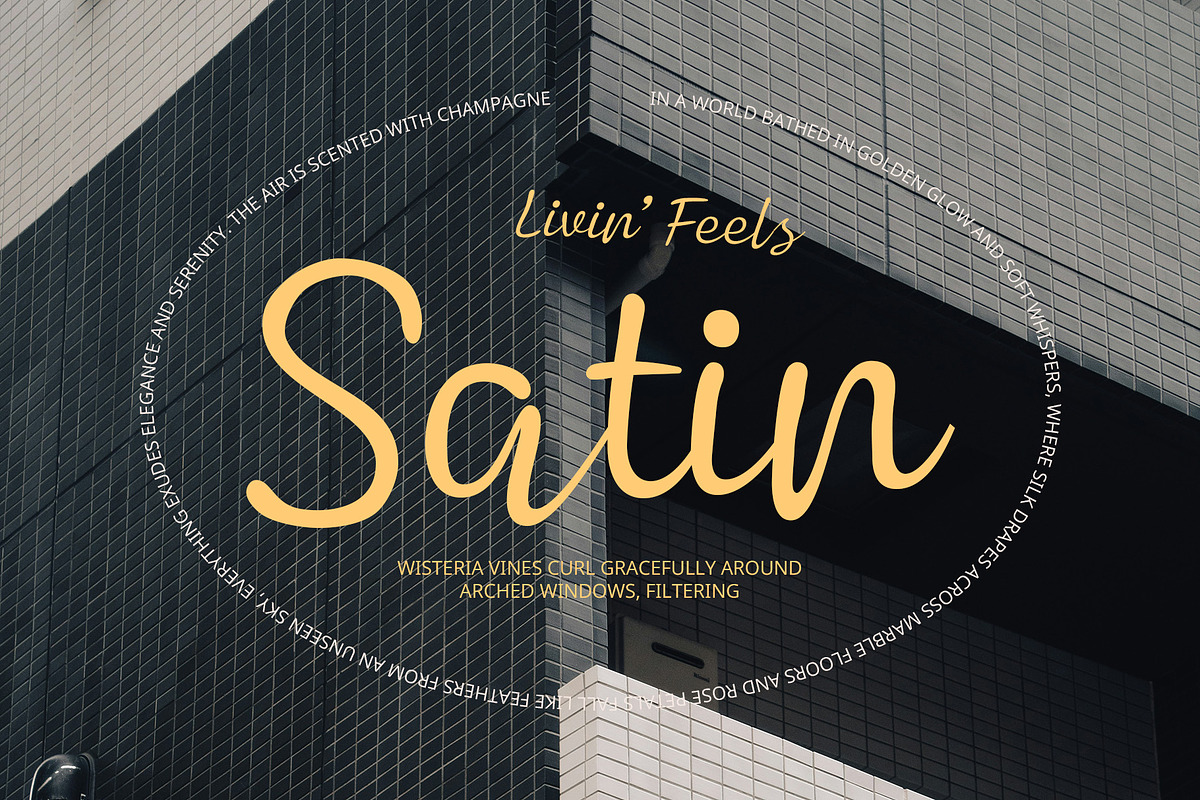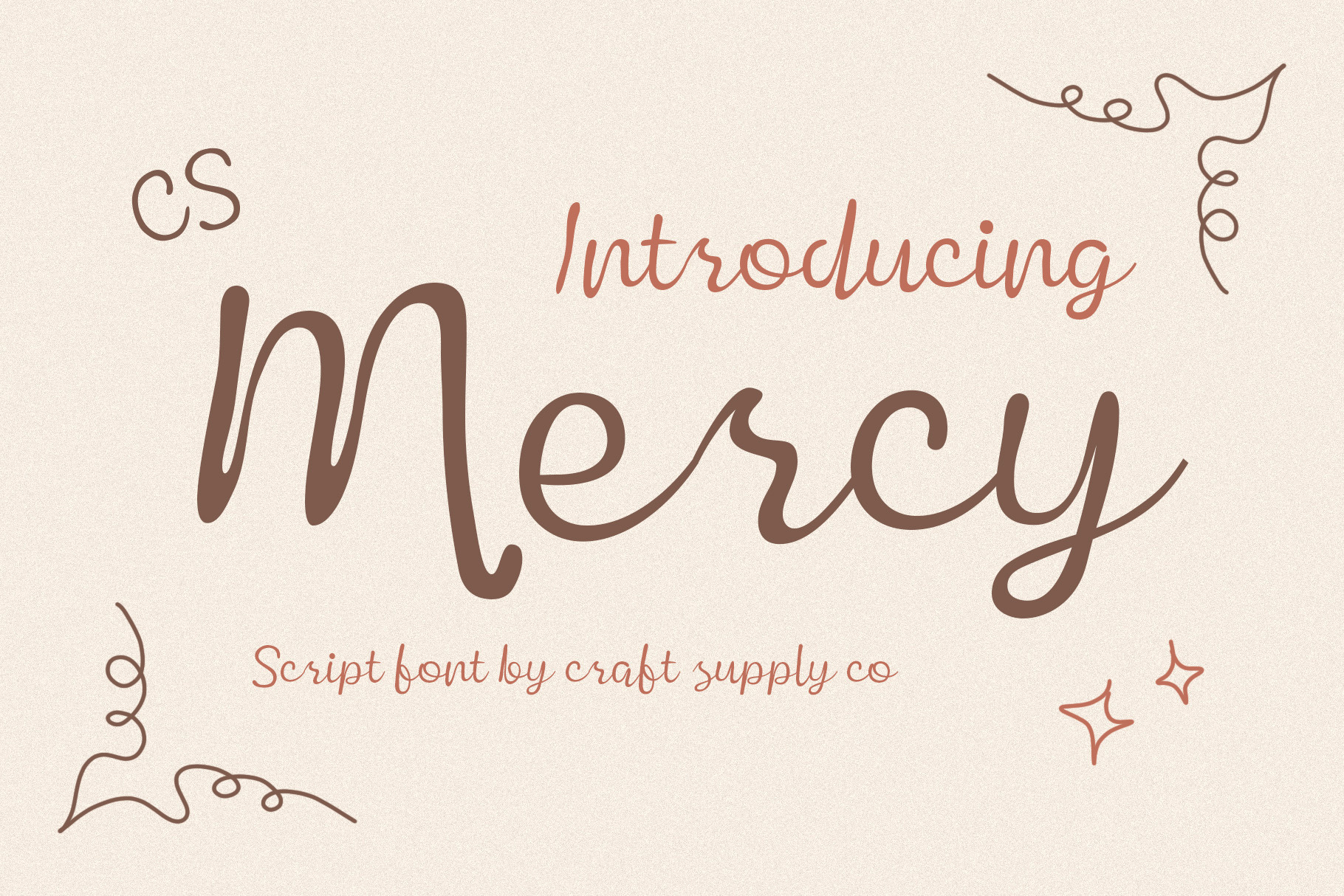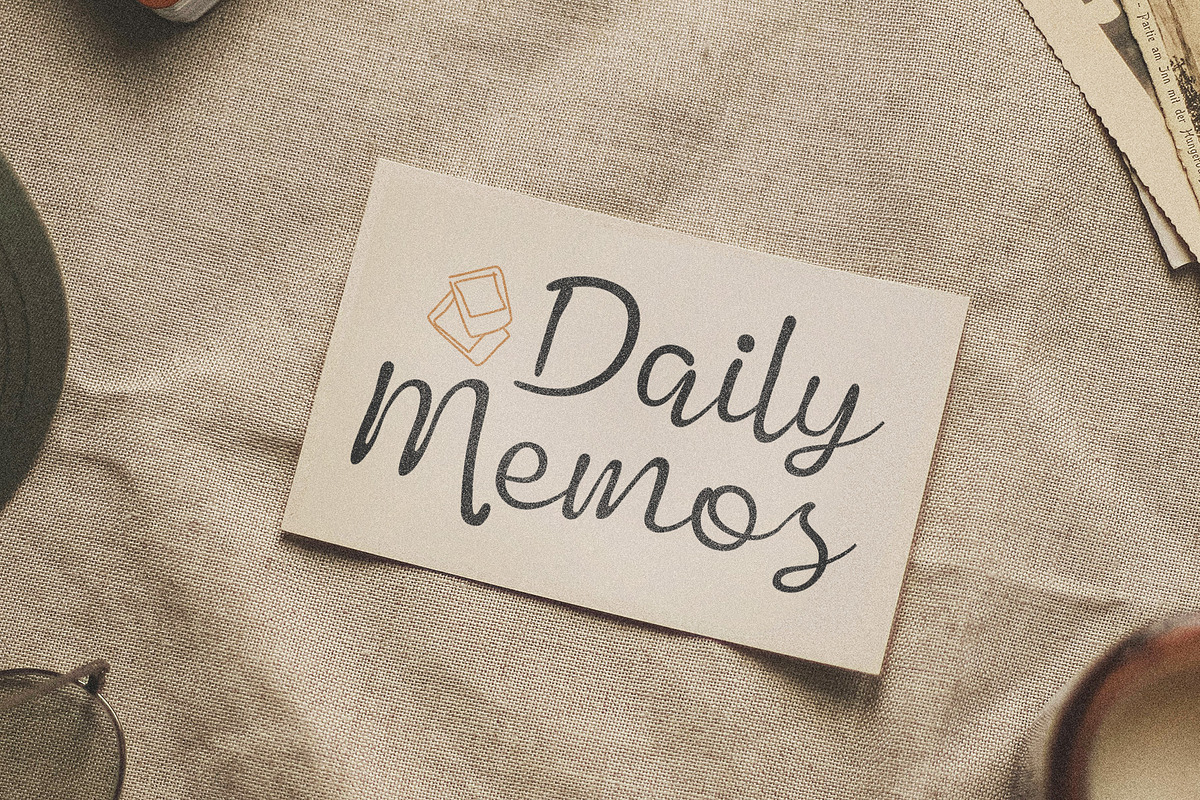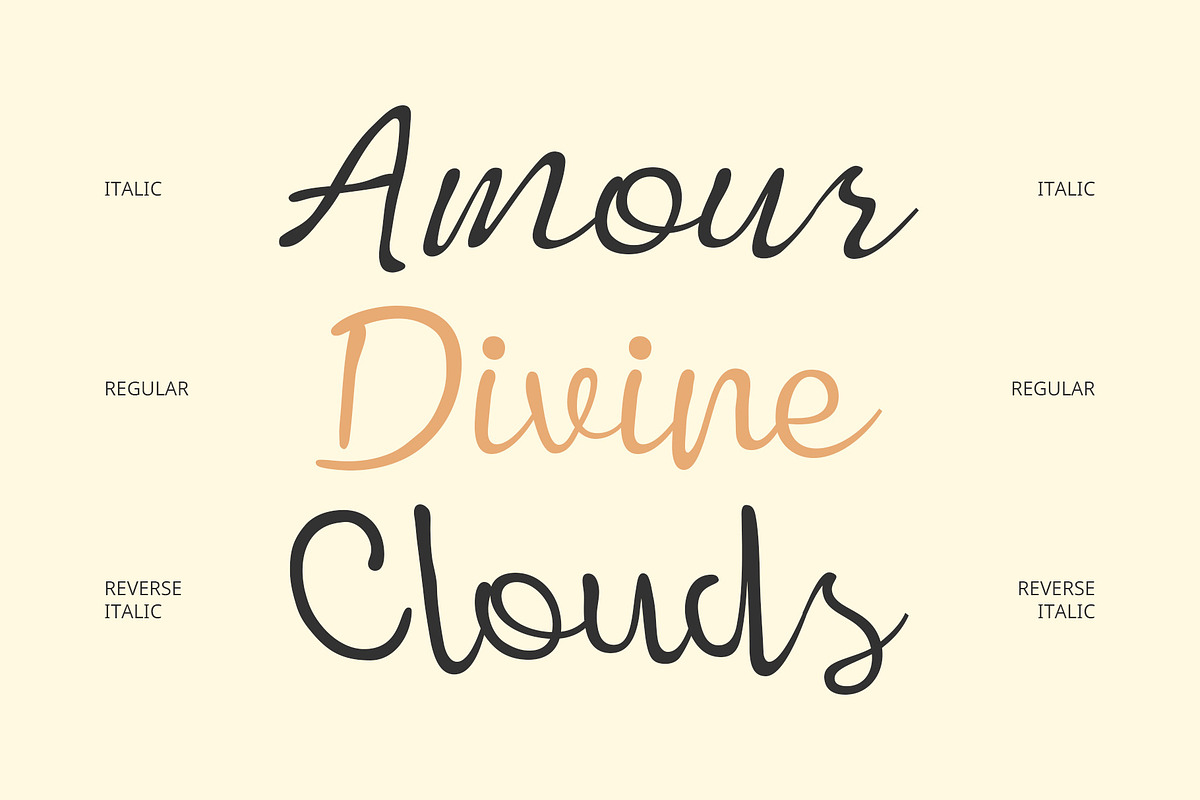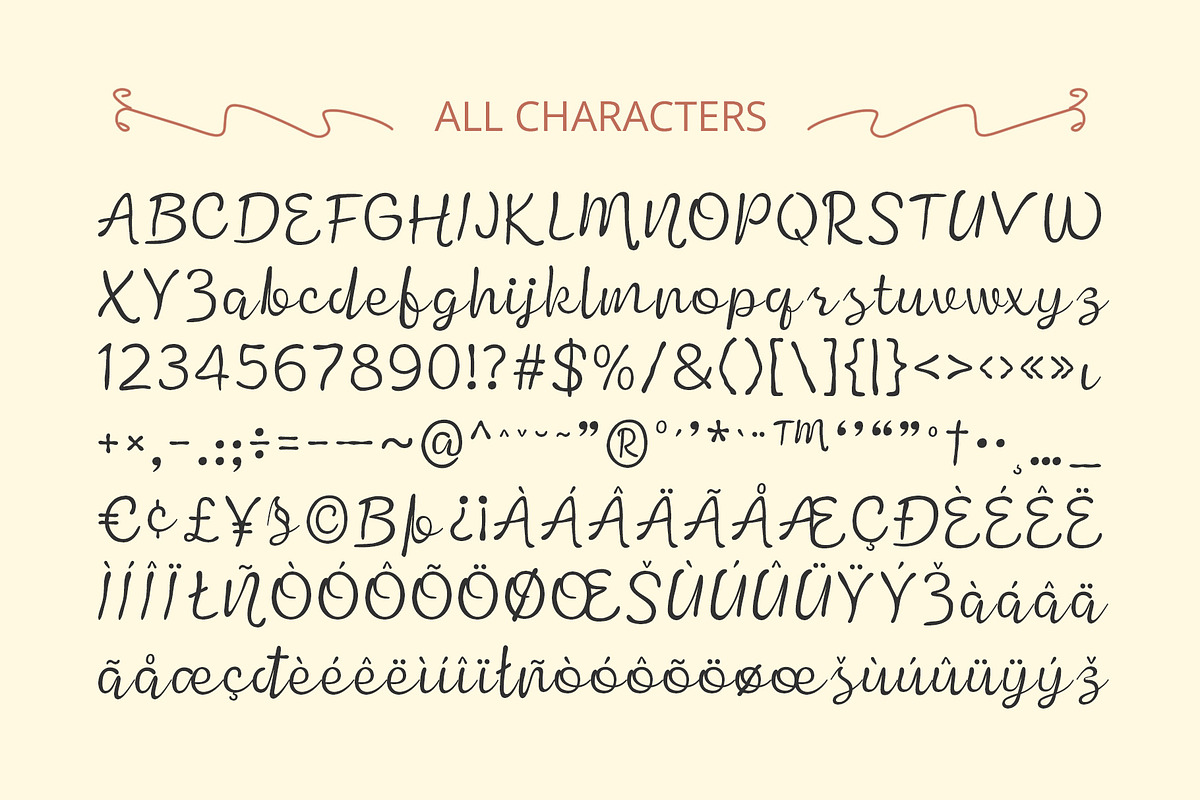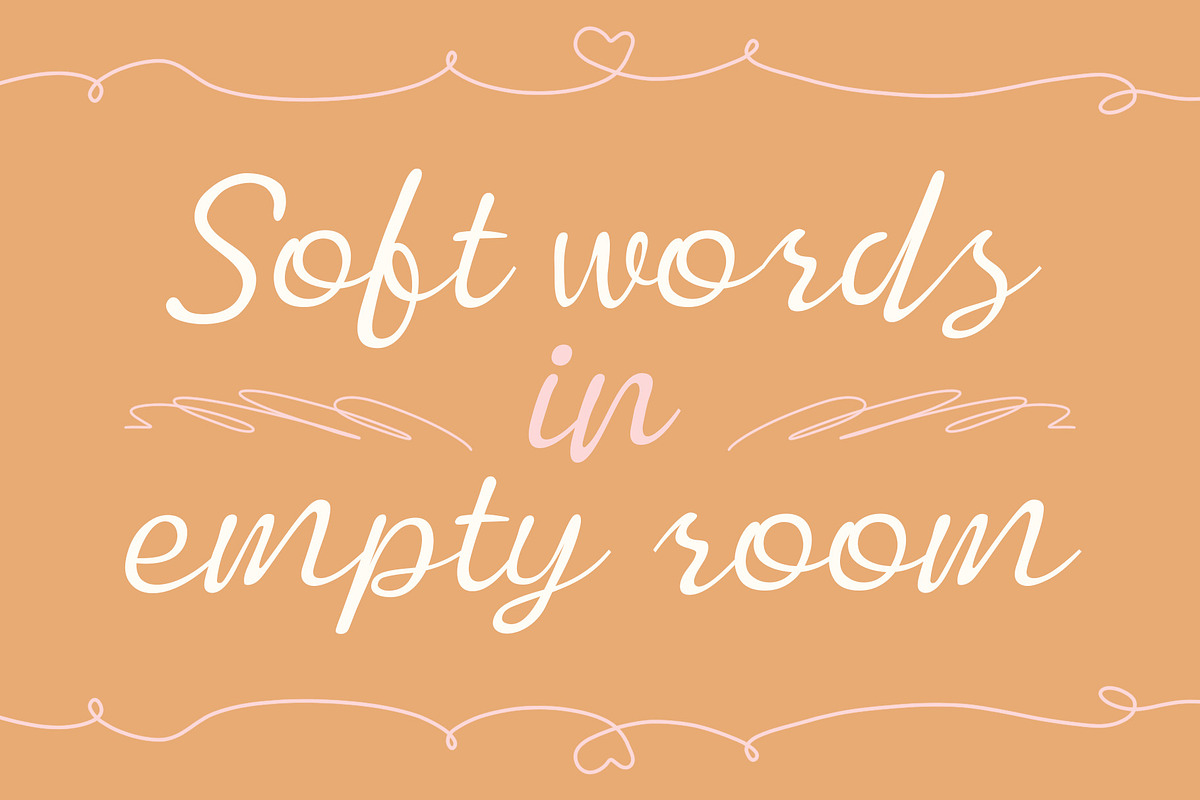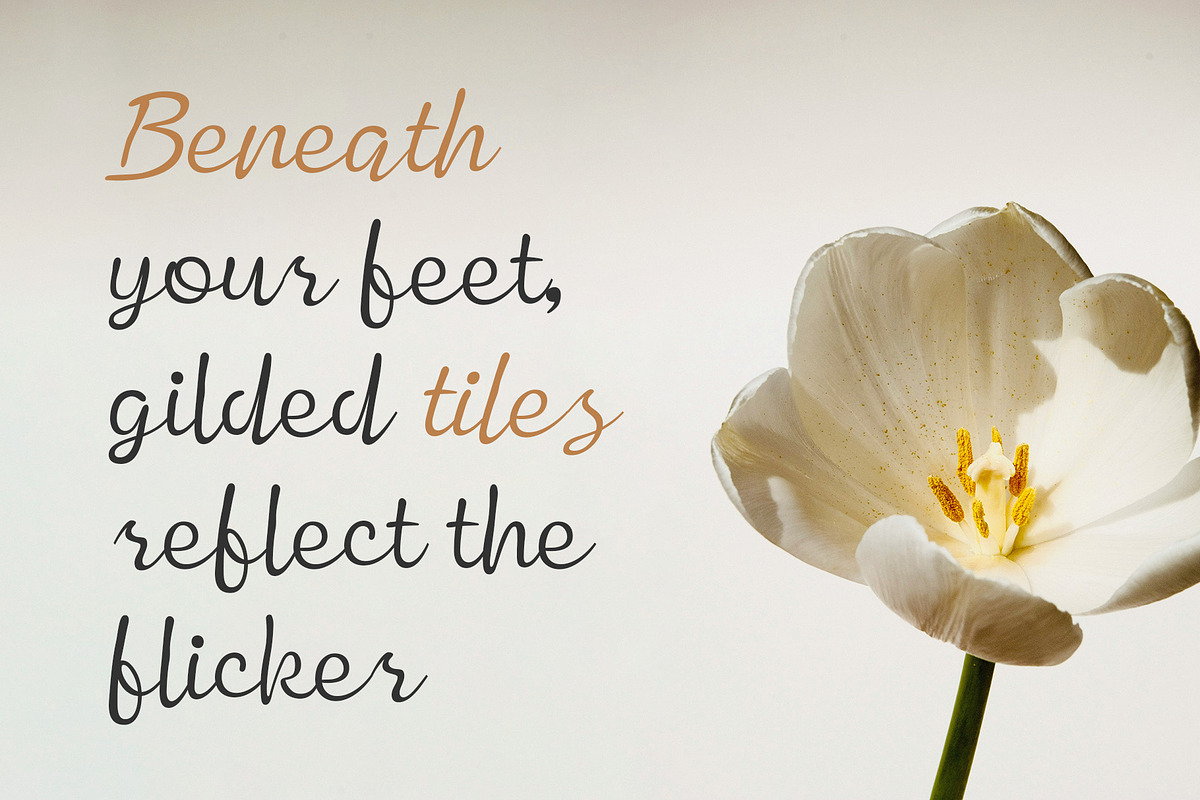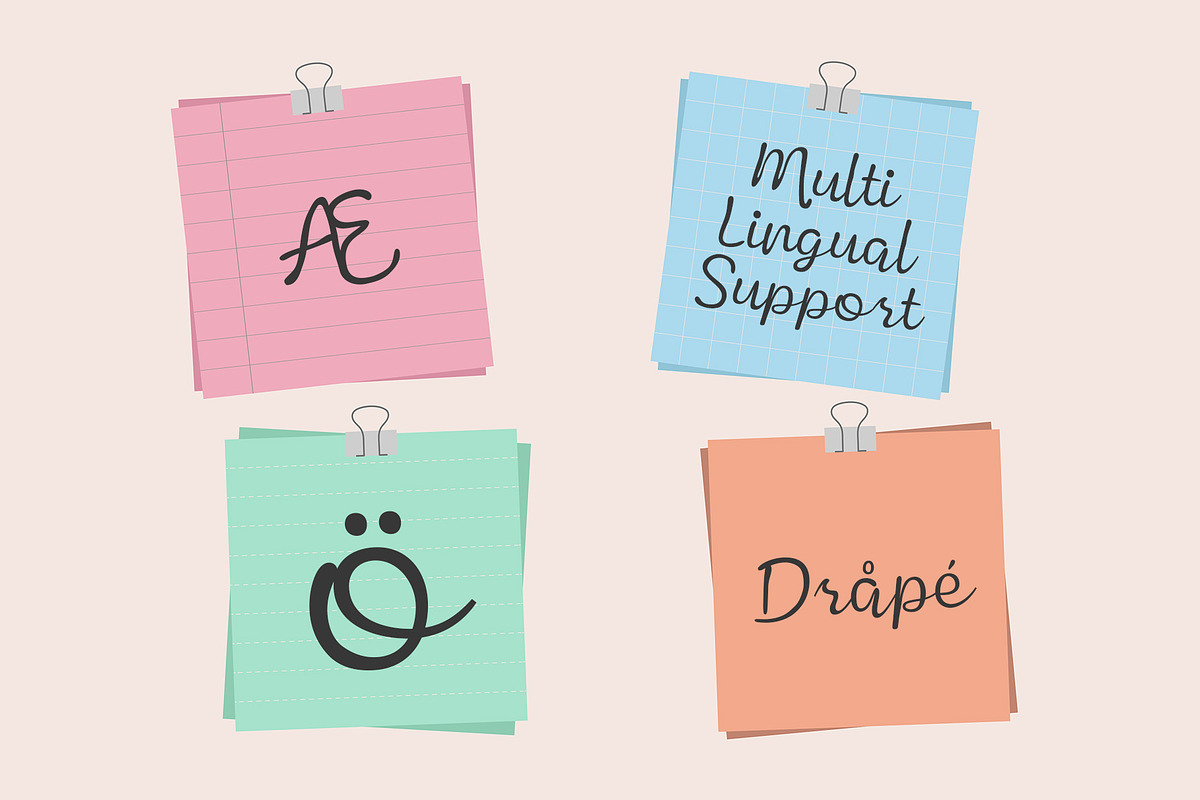
CS Mercy – Script Font
CS Mercy – Script Font: Elegance in Every Stroke
Graceful and Contemporary Style CS Mercy is a modern script font with a beautiful cursive handwritten style. Its clean and flowing strokes exude elegance and sophistication, creating a captivating presence in any design. With smooth letterforms and a refined rhythm, it balances contemporary precision with timeless charm, making it versatile for both digital and print use.
Captivating Elegance for Refined Designs Every curve of CS Mercy is crafted to highlight beauty and finesse. Its sleek handwritten look carries a sense of romance and luxury, ideal for projects that require a graceful, polished aesthetic. Whether for formal invitations, event stationery, or high-end branding, it brings sophistication to the forefront.
Perfect for Luxury and Creative Projects CS Mercy works beautifully for wedding invitations, fashion logos, packaging, and social media graphics. Its captivating handwritten flow enhances designs with warmth, refinement, and a professional yet personal touch. This makes it a reliable choice for creatives who want to convey both elegance and authenticity.
Versatile Script for Lasting Impressions Beyond its stylish curves, CS Mercy remains highly readable, making it practical as well as beautiful. It can serve as the focal point in headlines, branding elements, or even pair gracefully with modern serif or sans-serif fonts for balanced typography. Wherever it’s used, CS Mercy ensures a lasting and elegant impression.
- CS Mercy Regular
- CS Mercy Italic
- CS Mercy Reverse Italic